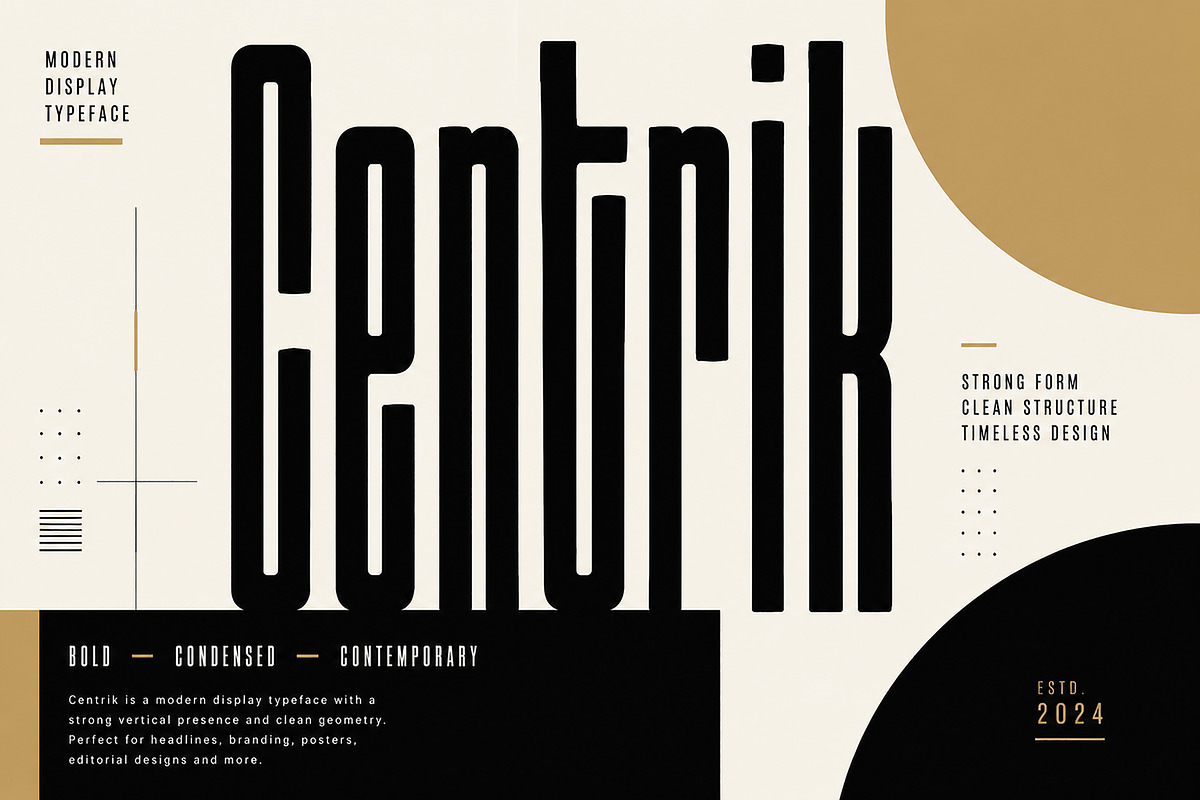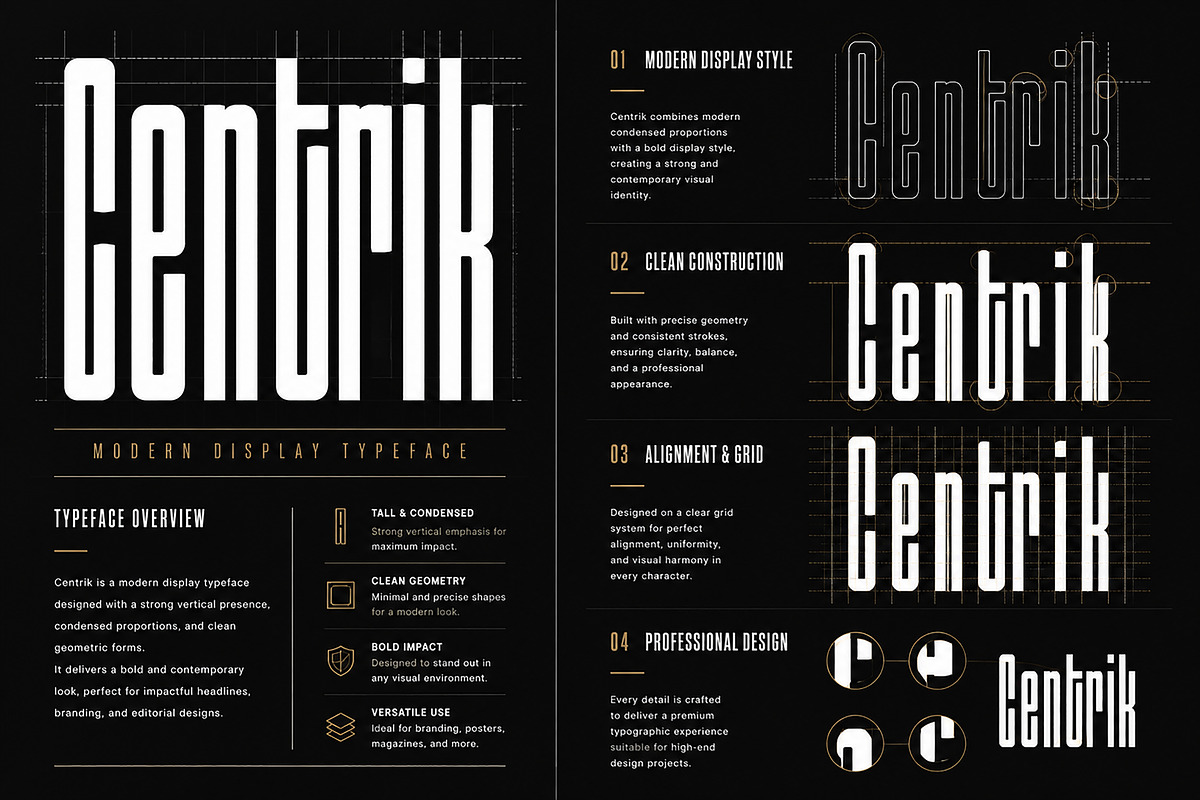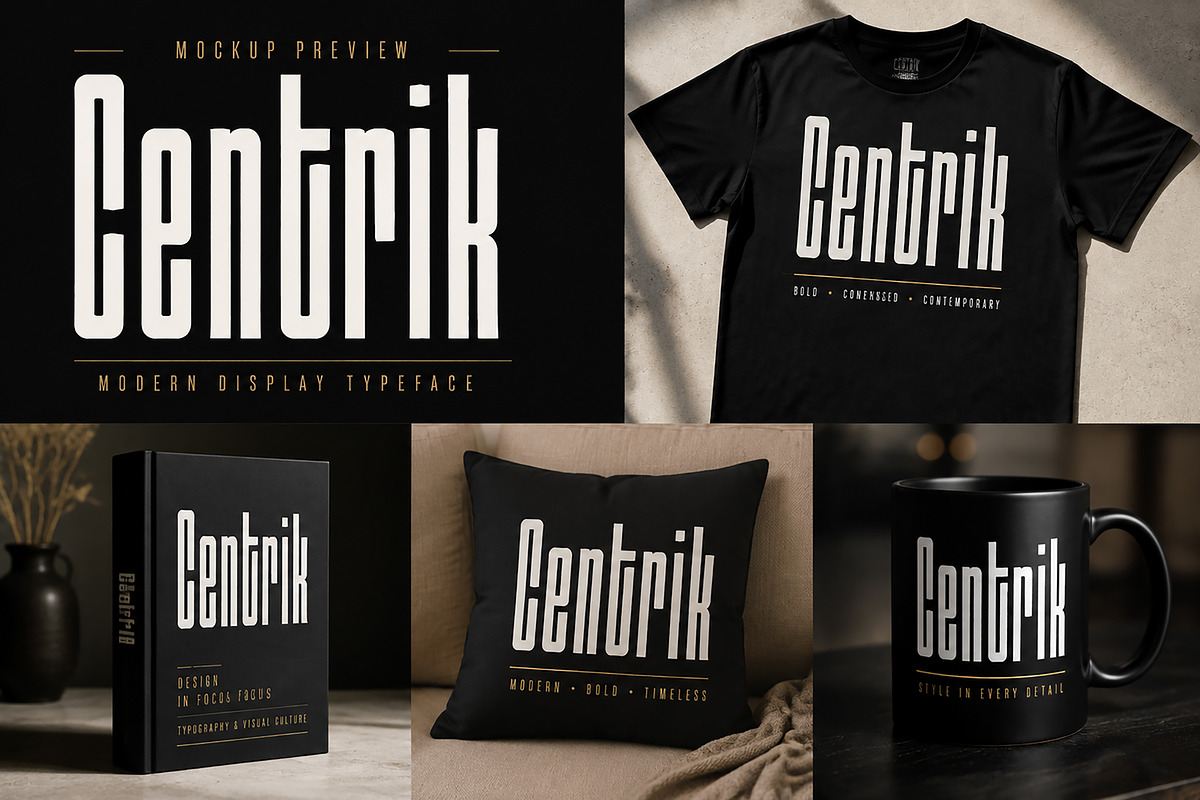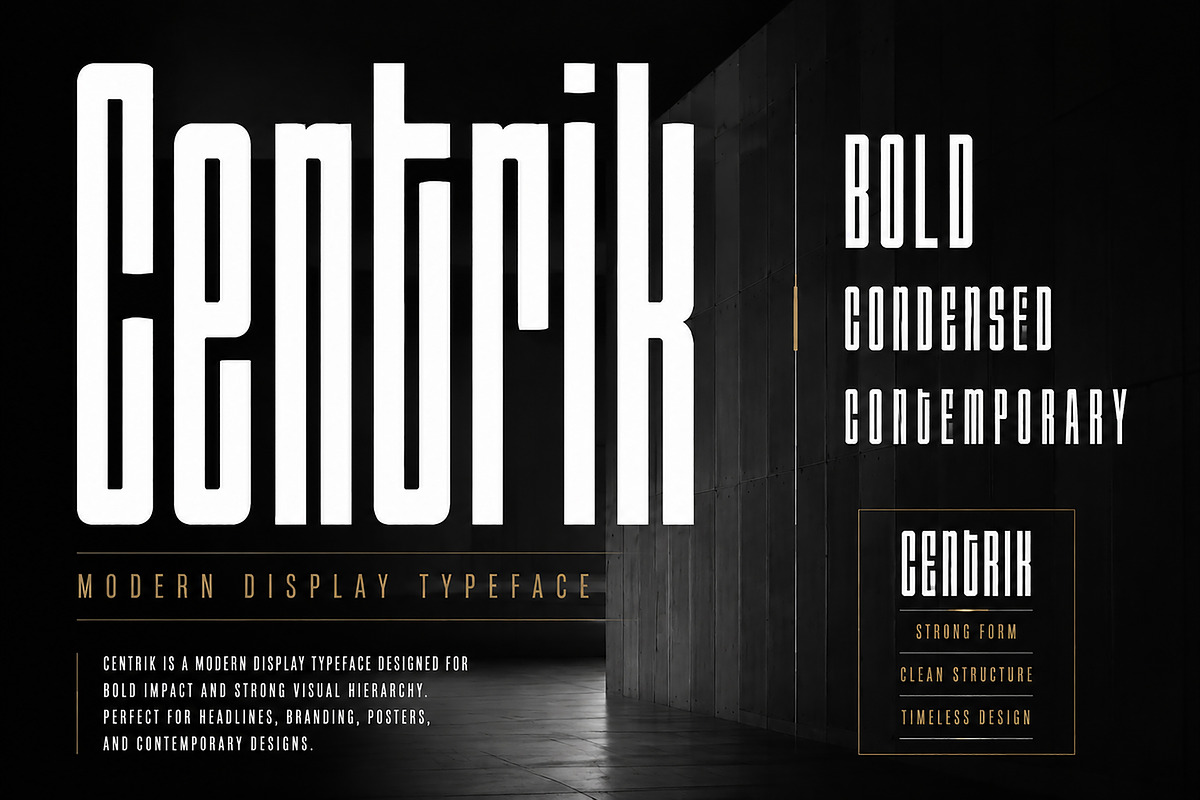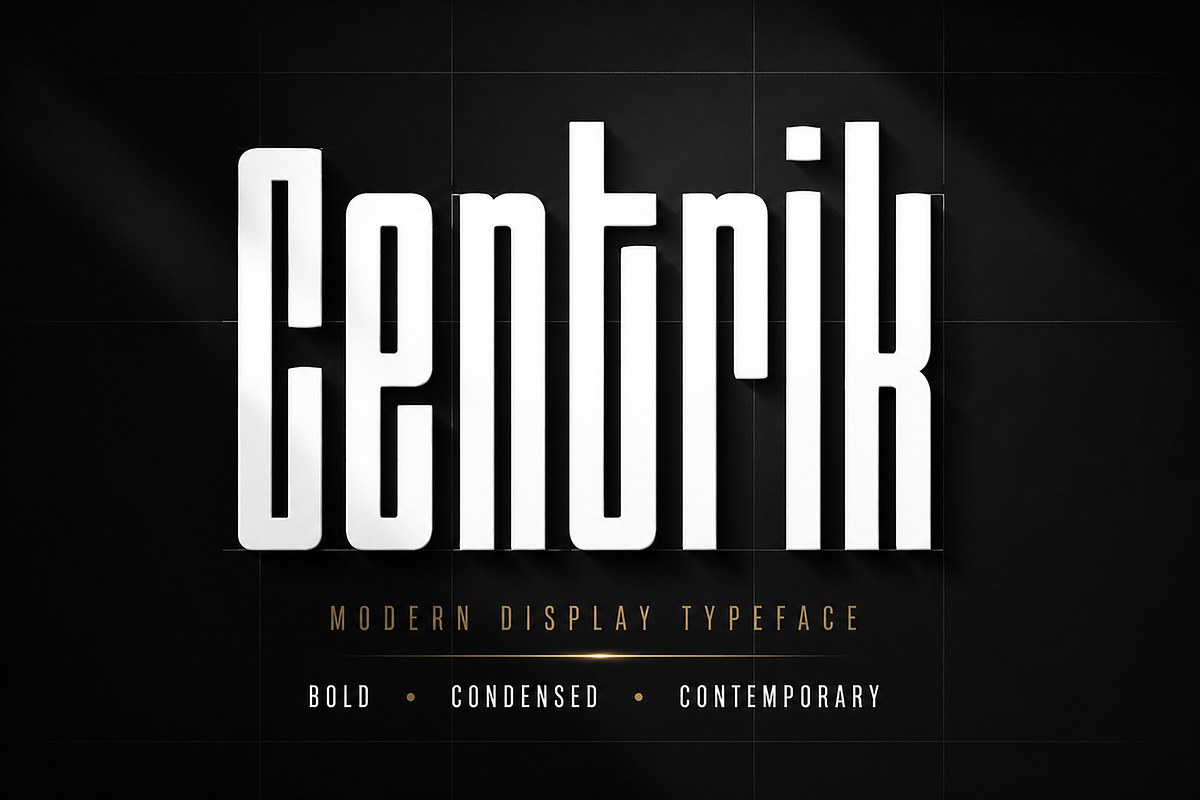
Centrik
Centrik – Modern Condensed Display Font | Bold Geometric Typeface
Centrik is a modern condensed display typeface designed with a strong vertical presence, bold structure, and contemporary geometric style. Its tall and narrow proportions create a powerful visual impact while maintaining a clean and professional appearance.
Perfect for creating eye-catching designs, Centrik brings a premium editorial feel to branding, posters, headlines, logos, magazines, packaging, fashion projects, and modern visual identities.
Designed for designers who need a strong statement font with a unique personality, Centrik combines bold forms, clean construction, and a timeless display style.
✓ Modern condensed display typeface
✓ Bold and impactful letter structure
✓ Clean geometric construction
✓ Premium editorial style
✓ Strong visual identity
✓ Perfect for headlines and branding projects
✓ Professional and versatile design
• Logo Design
• Branding & Identity
• Posters
• Editorial Design
• Magazine Covers
• Fashion Branding
• Packaging Design
• Social Media Graphics
• Website Headers
• Creative Advertising
Centrik is created to help designers achieve a bold, modern, and professional look across a wide range of creative projects.